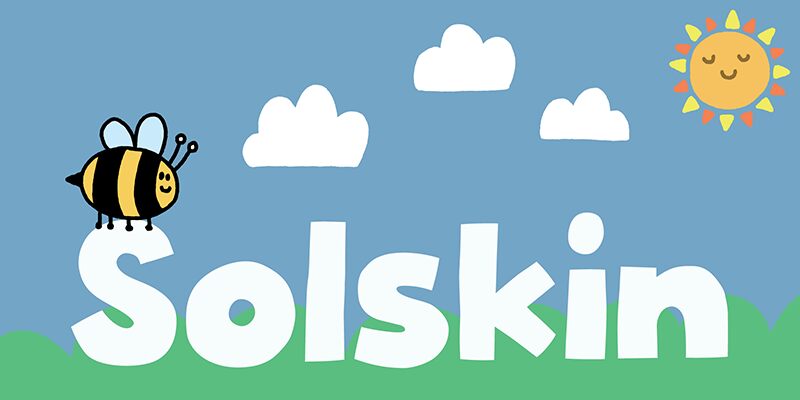
Solskin DEMO
Solskin font by Pizzadude is a chunky cartoon display with an energetic and friendly appearance. Its geometric shapes, bold presence, and rounded edges give it a modern look that jumps off the page to grab attention.
A free one for you to apply to packages, book covers, children-oriented graphics, branding identities, visual identity elements like logos and stationery items. Solskin is also suitable for advertising material design posters or cards alongside digital media such as websites or social media posts.